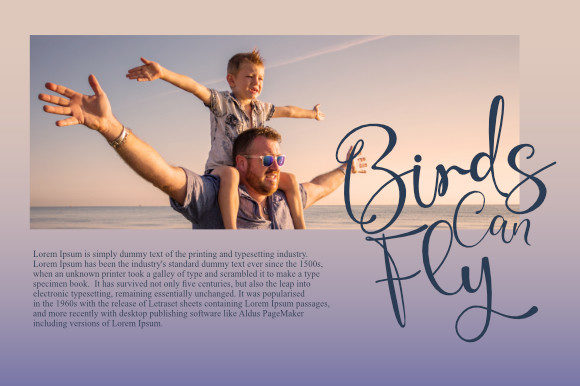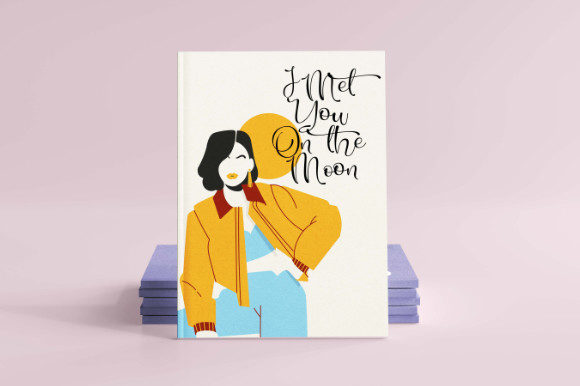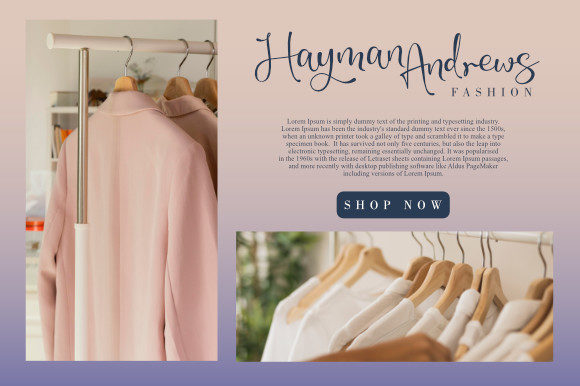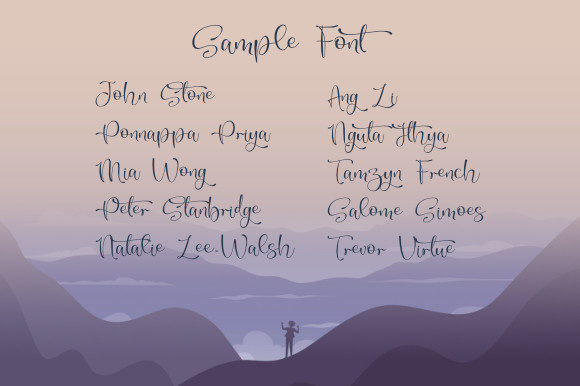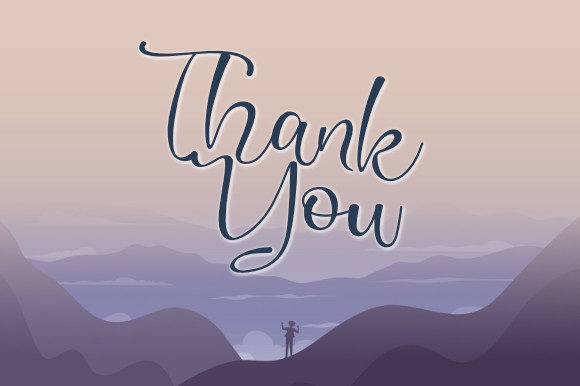
Introducing Beauty Azure Font: The Sweet and Versatile Handwritten Font for Designers and Crafters
Are you a designer, crafter, or digital artist looking for a font that can add a touch of sweetness and elegance to your projects? Look no further than Beauty Azure Font, a round lettered and sweet handwritten font that’s perfect for a variety of creative endeavors. In this article, we’ll explore the features and benefits of Beauty Azure Font, and show you how it can elevate your designs, crafts, and digital projects.
What is Beauty Azure Font?
Beauty Azure Font is a beautiful, handwritten font that’s designed to add a personal and whimsical touch to your projects. Its round letters and sweet curves make it perfect for a wide range of applications, from crafting and digital designing to presentations and greeting cards making. With its elegant and flowing script, Beauty Azure Font is sure to capture the hearts of your audience and leave a lasting impression.
Features of Beauty Azure Font
So, what makes Beauty Azure Font so special? Here are some of its key features:
- Round Lettered: Beauty Azure Font features round letters that are smooth and elegant, making it perfect for projects that require a touch of sophistication.
- Sweet Handwritten: The font’s handwritten style gives it a personal and whimsical feel that’s perfect for adding a touch of warmth and personality to your projects.
- Versatile: Beauty Azure Font is versatile and can be used for a wide range of projects, from crafting and digital designing to presentations and greeting cards making.
- Elegant and Flowing Script: The font’s elegant and flowing script makes it perfect for projects that require a touch of elegance and sophistication.
Uses of Beauty Azure Font
Beauty Azure Font is perfect for a variety of creative endeavors, including:
- Crafting: Use Beauty Azure Font to add a personal touch to your craft projects, such as scrapbooking, card making, and DIY gifts.
- Digital Designing: Beauty Azure Font is perfect for digital designers who want to add a touch of elegance and sophistication to their designs, such as brochures, flyers, and social media graphics.
- Presentations: Use Beauty Azure Font to add a touch of professionalism and elegance to your presentations, such as business presentations, educational presentations, and sales pitches.
- Greeting Cards Making: Beauty Azure Font is perfect for creating beautiful and personalized greeting cards for special occasions, such as birthdays, weddings, and holidays.
Benefits of Using Beauty Azure Font
So, why should you use Beauty Azure Font for your projects? Here are some of its benefits:
- Adds a Personal Touch: Beauty Azure Font adds a personal and whimsical touch to your projects, making them more engaging and memorable.
- Versatile: The font’s versatility makes it perfect for a wide range of projects, from crafting and digital designing to presentations and greeting cards making.
- Elegant and Sophisticated: Beauty Azure Font’s elegant and flowing script makes it perfect for projects that require a touch of elegance and sophistication.
- Easy to Read: The font’s clear and legible script makes it easy to read, even at small sizes.
| Font Name | Beauty Azure Font |
| Author | EKNOJI |
In conclusion, Beauty Azure Font is a beautiful and versatile handwritten font that’s perfect for designers, crafters, and digital artists. Its round letters and sweet curves make it perfect for a wide range of applications, from crafting and digital designing to presentations and greeting cards making. With its elegant and flowing script, Beauty Azure Font is sure to capture the hearts of your audience and leave a lasting impression. So, why wait? Download Beauty Azure Font today and start creating beautiful and memorable projects!